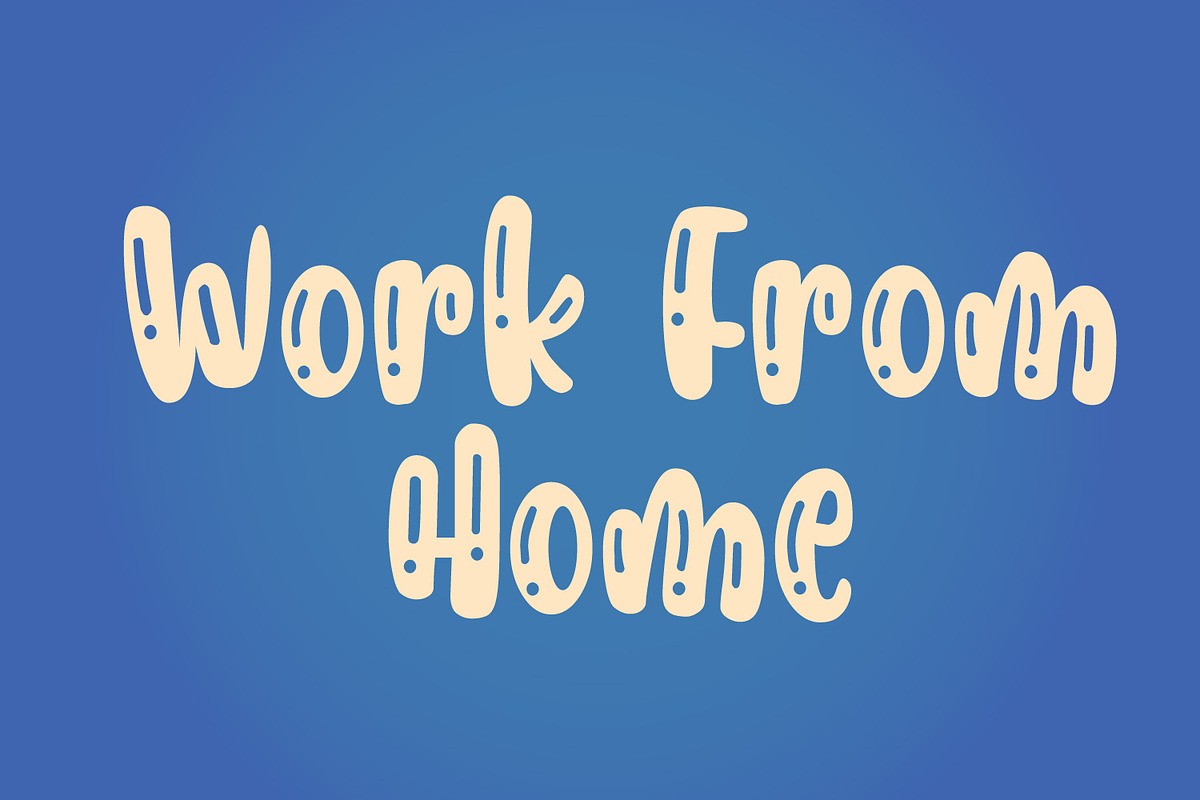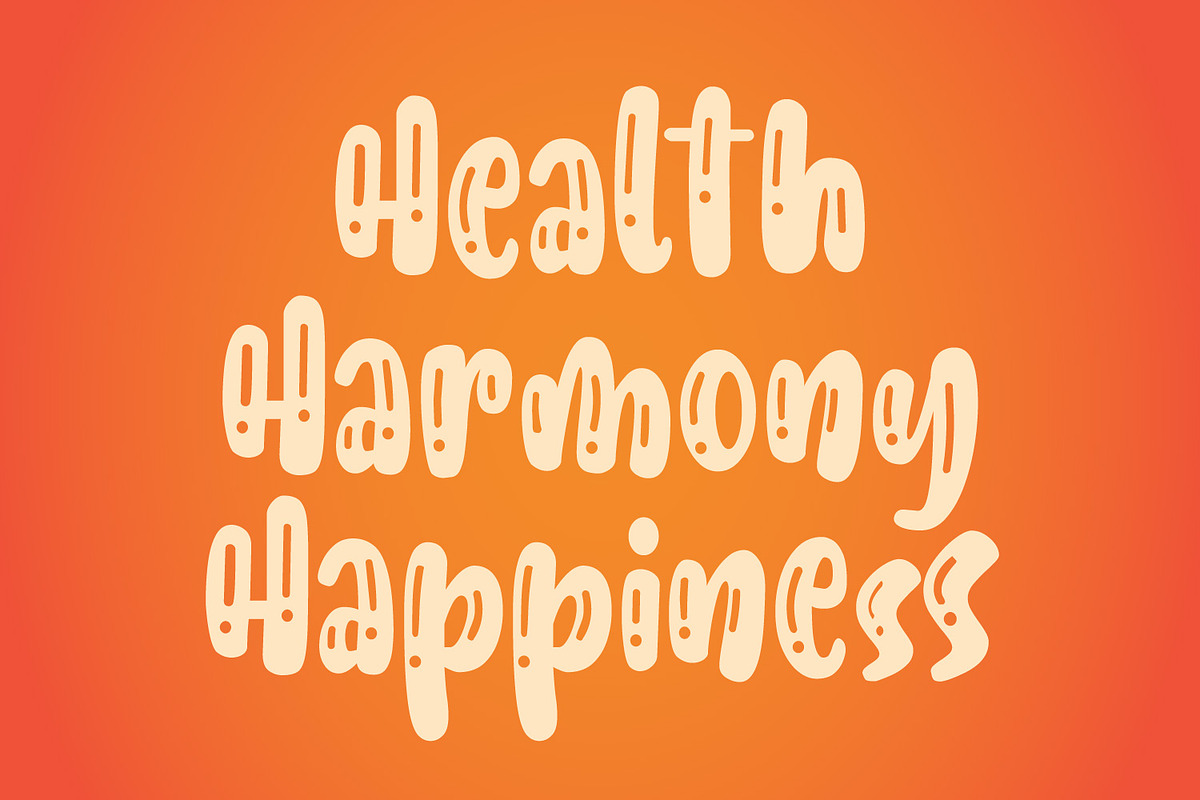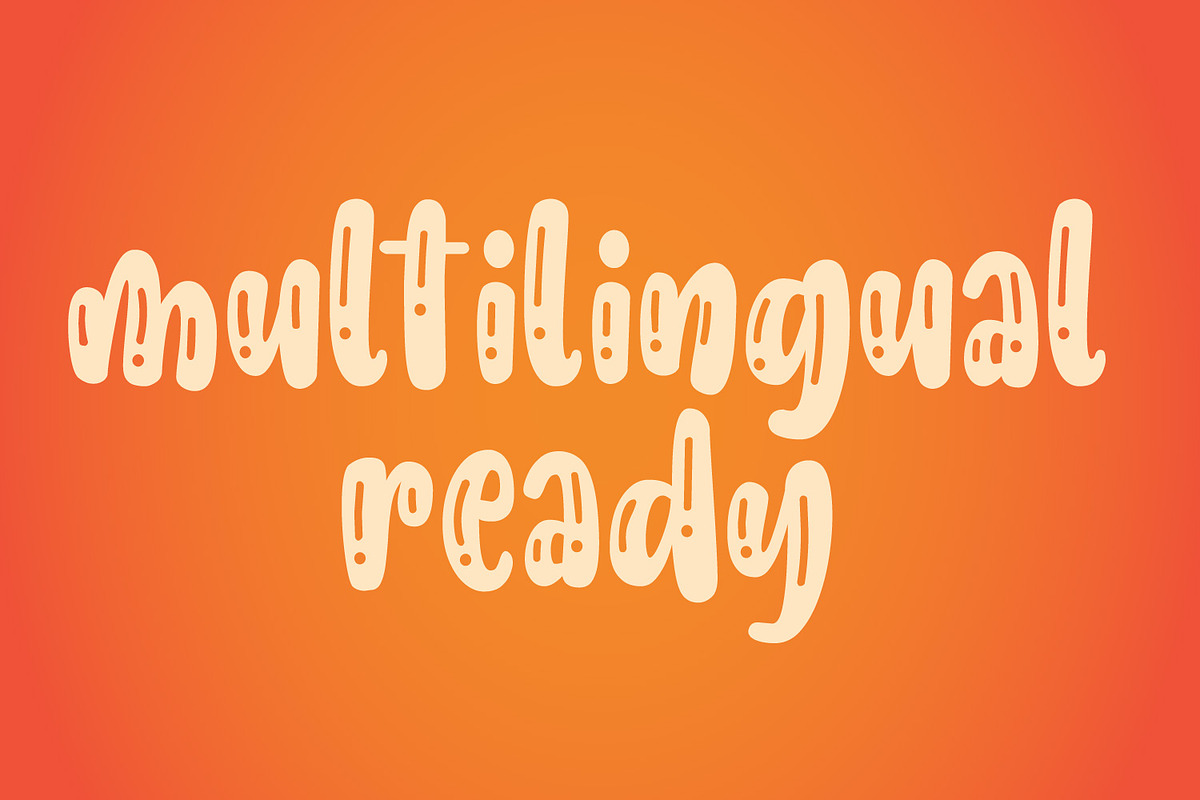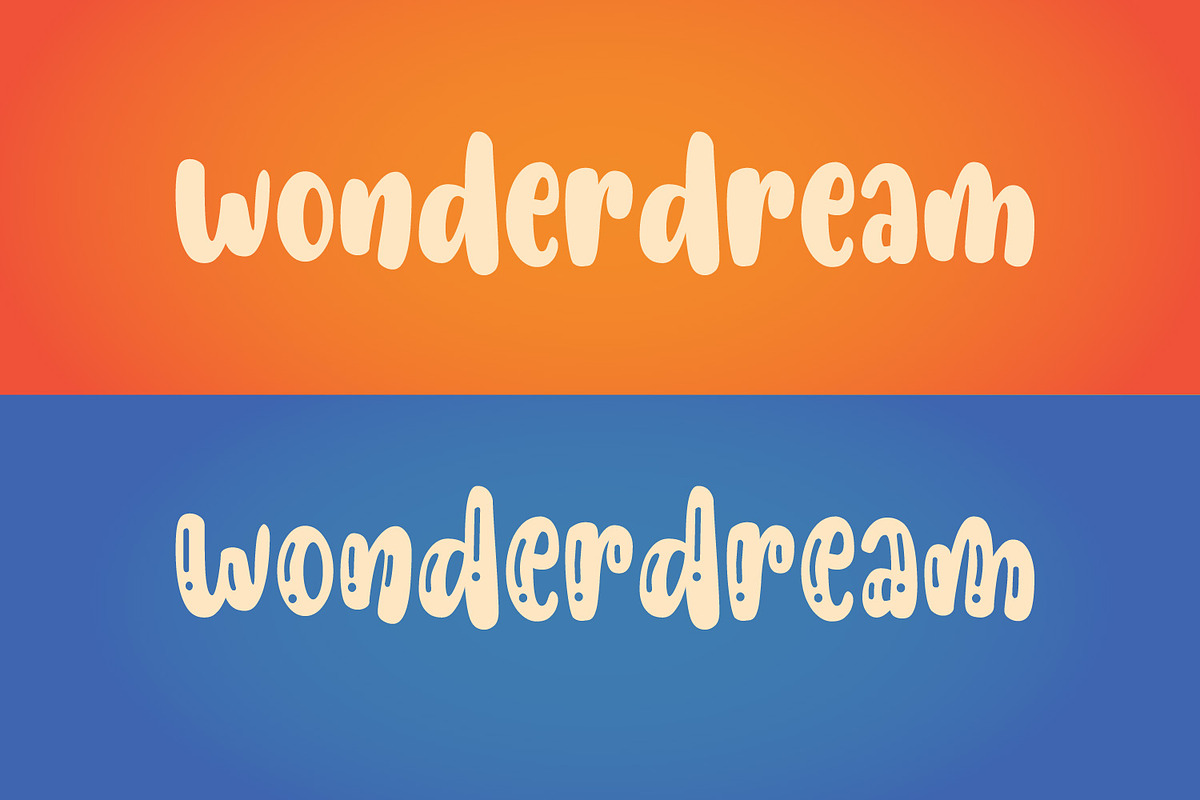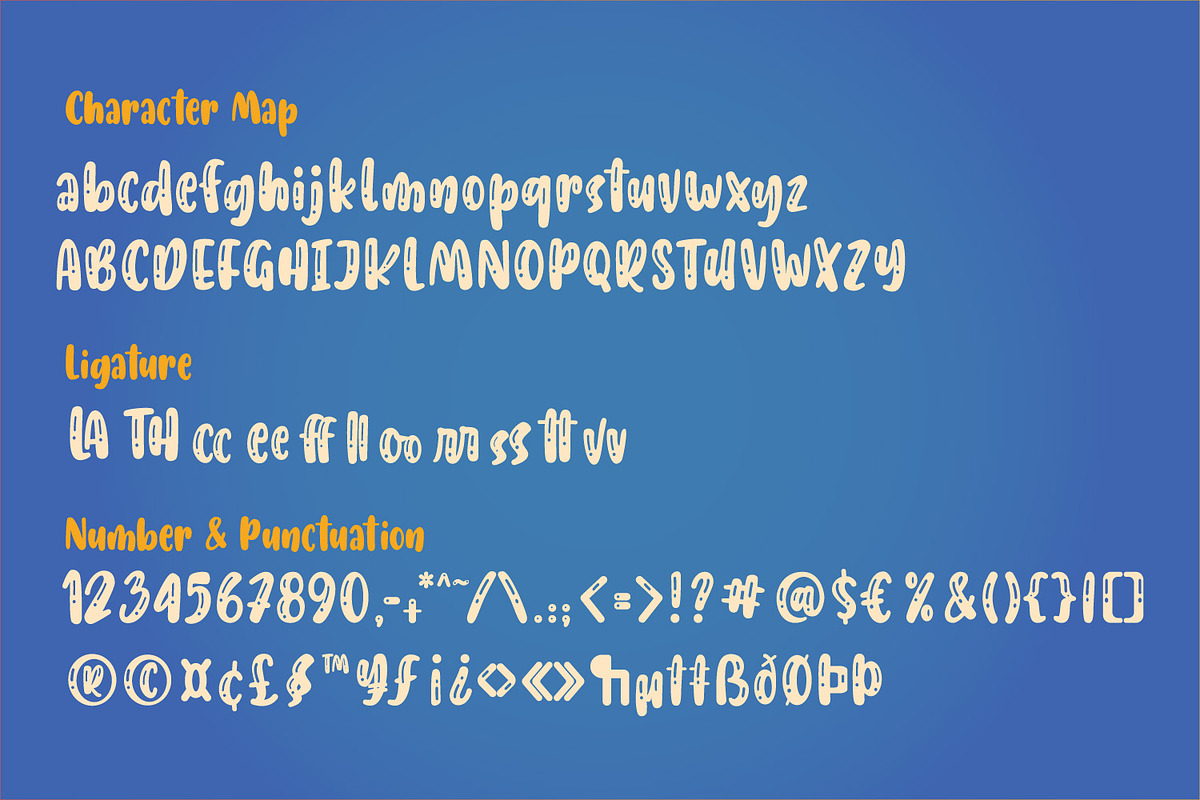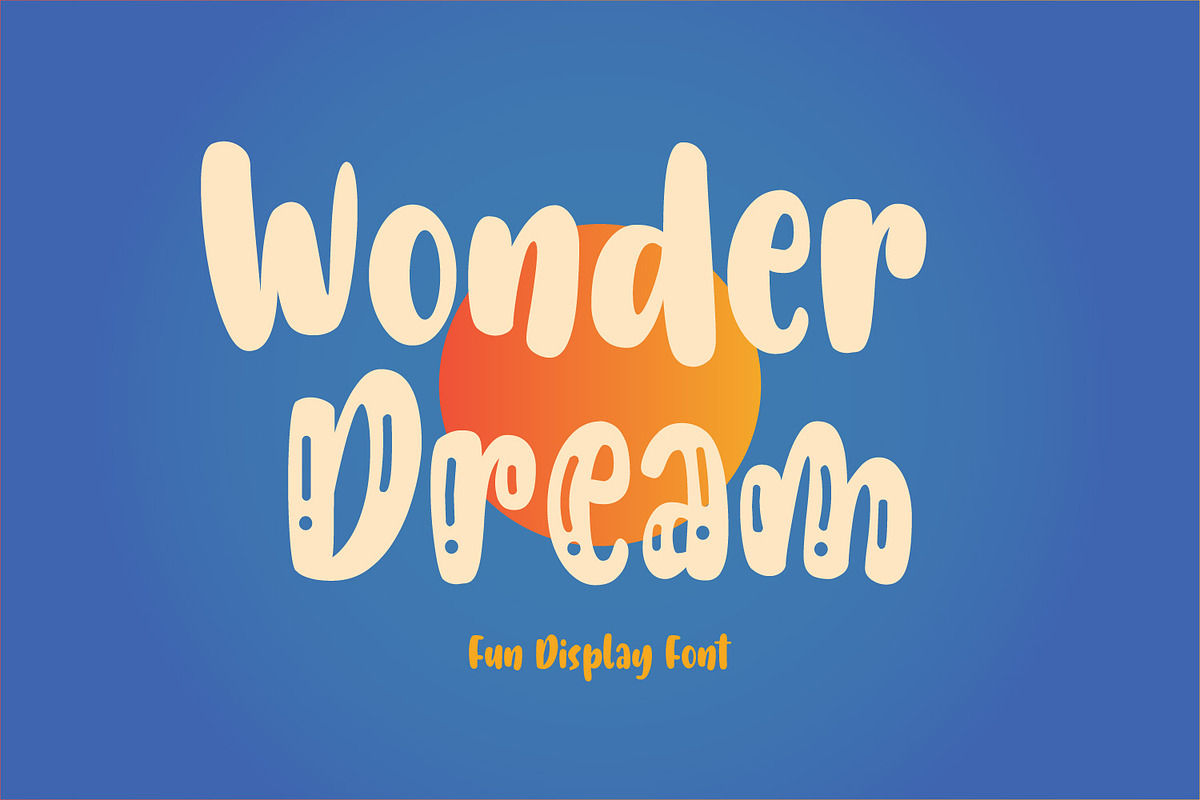
Wonder Dream
Wonder Dream is a display font that has a unique character, it has 2 versions, you can easily choose it according to your design needs. With this font you will produce a unique design